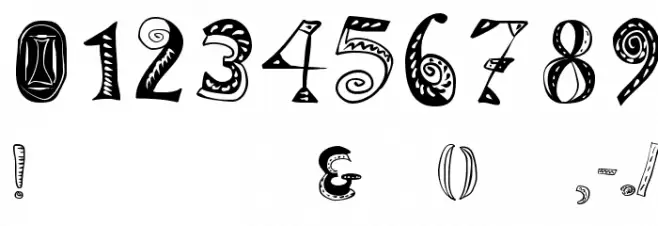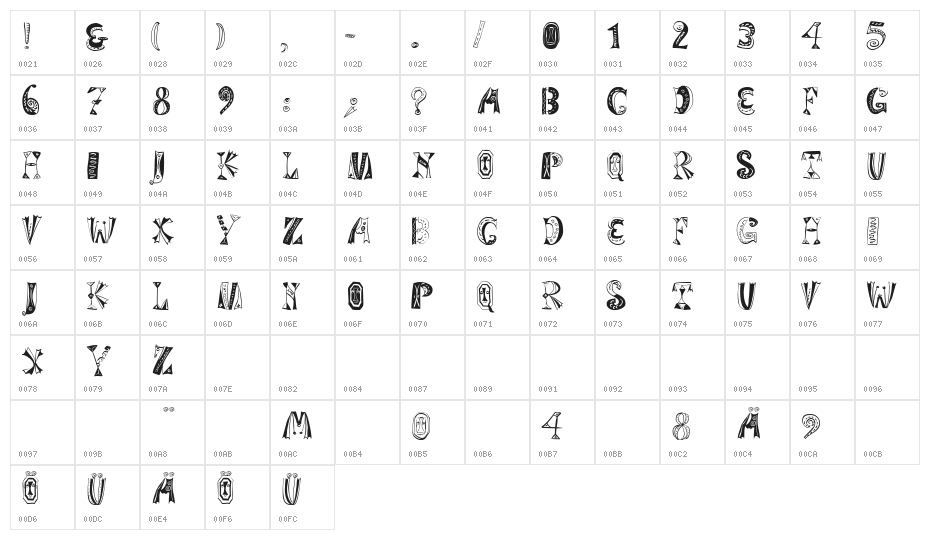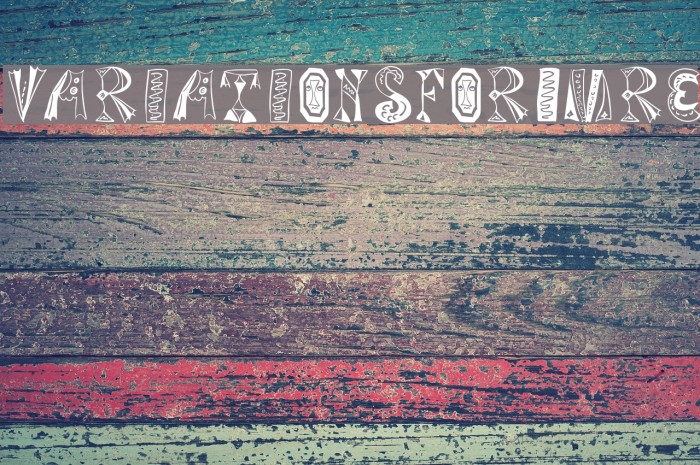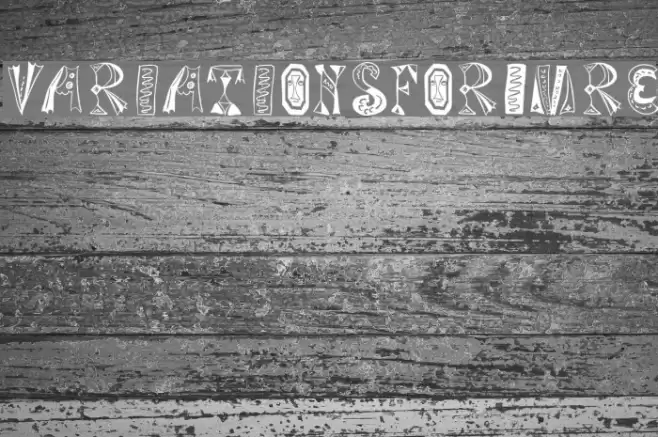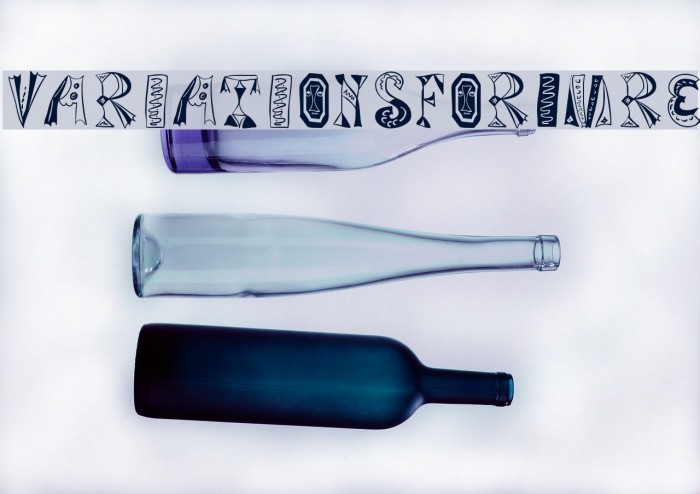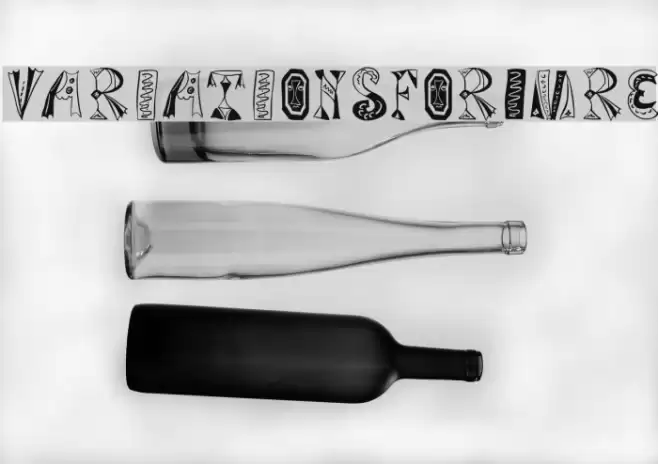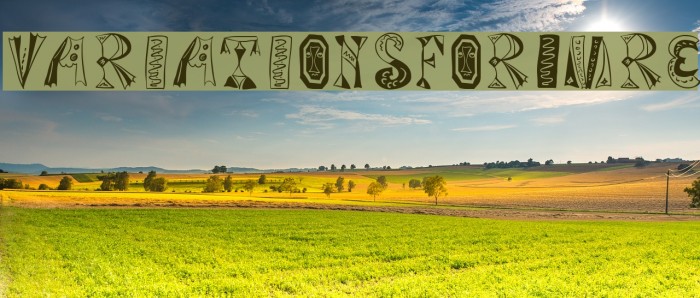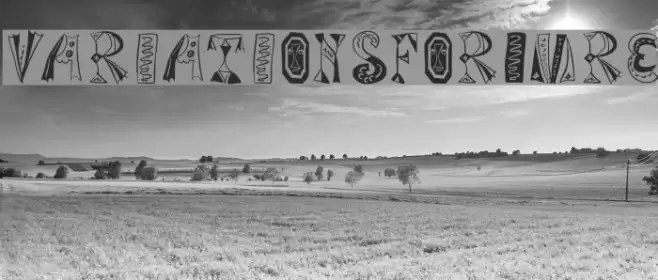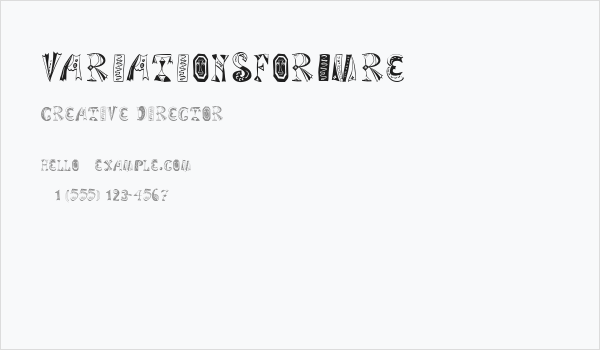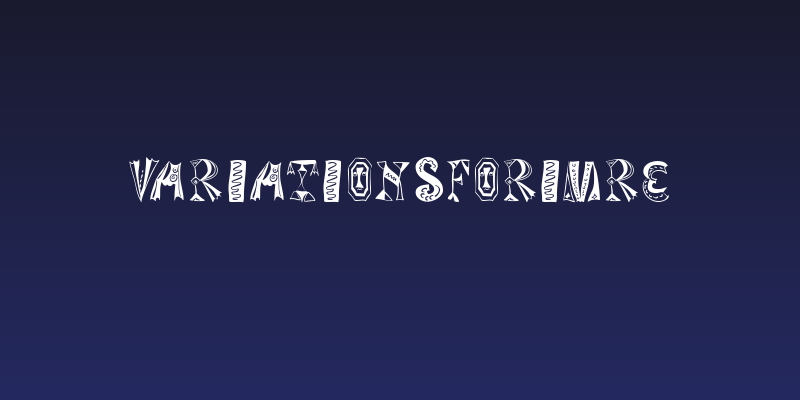
VariationsForImre Font
VariationsForImre Description
This font is a highly decorative and playful typeface, featuring a unique and eclectic design for each character. Each letter and number is crafted with intricate patterns, swirls, and artistic elements, giving it a whimsical and artistic flair. The font is characterized by its bold and varied strokes, with each character presenting a different visual theme, ranging from geometric shapes to organic, flowing designs. This diversity in style within the same typeface makes it stand out as a creative and eye-catching choice for projects that require a strong visual impact.
| Proposed Projects | Ideal for creative projects such as posters, album covers, children's books, and artistic branding materials. |